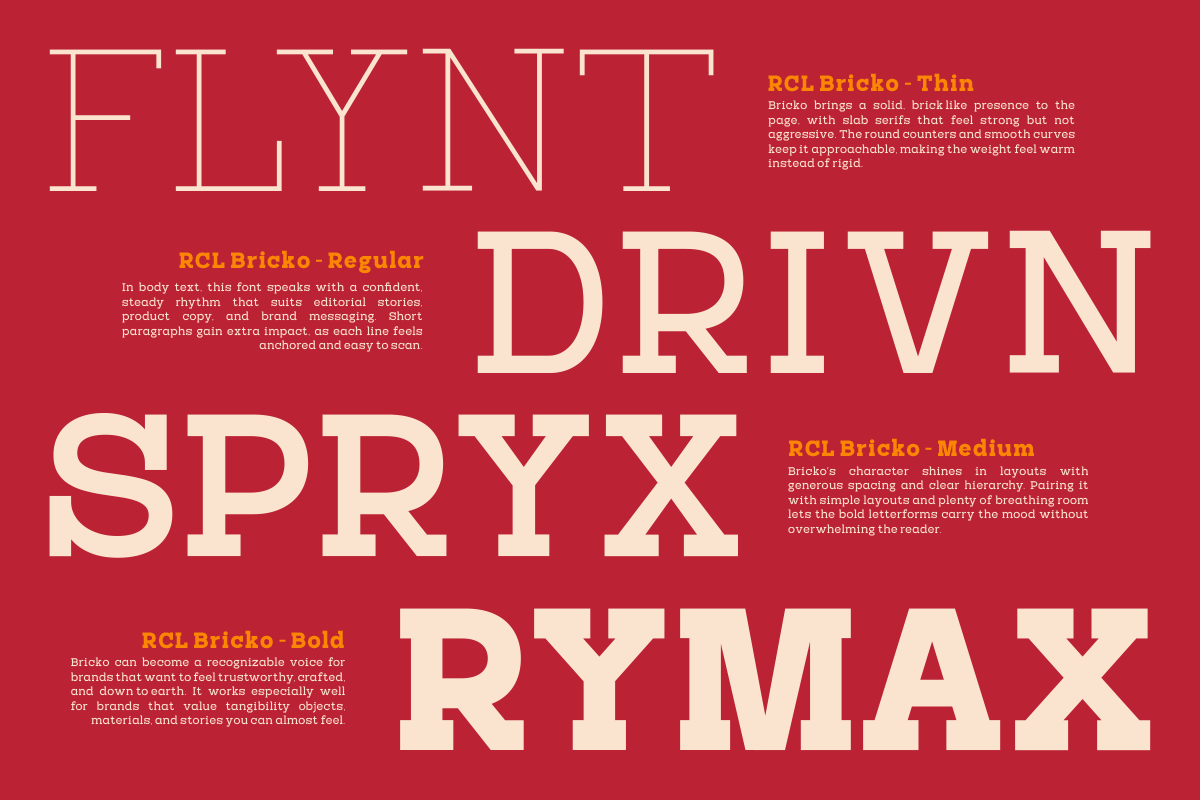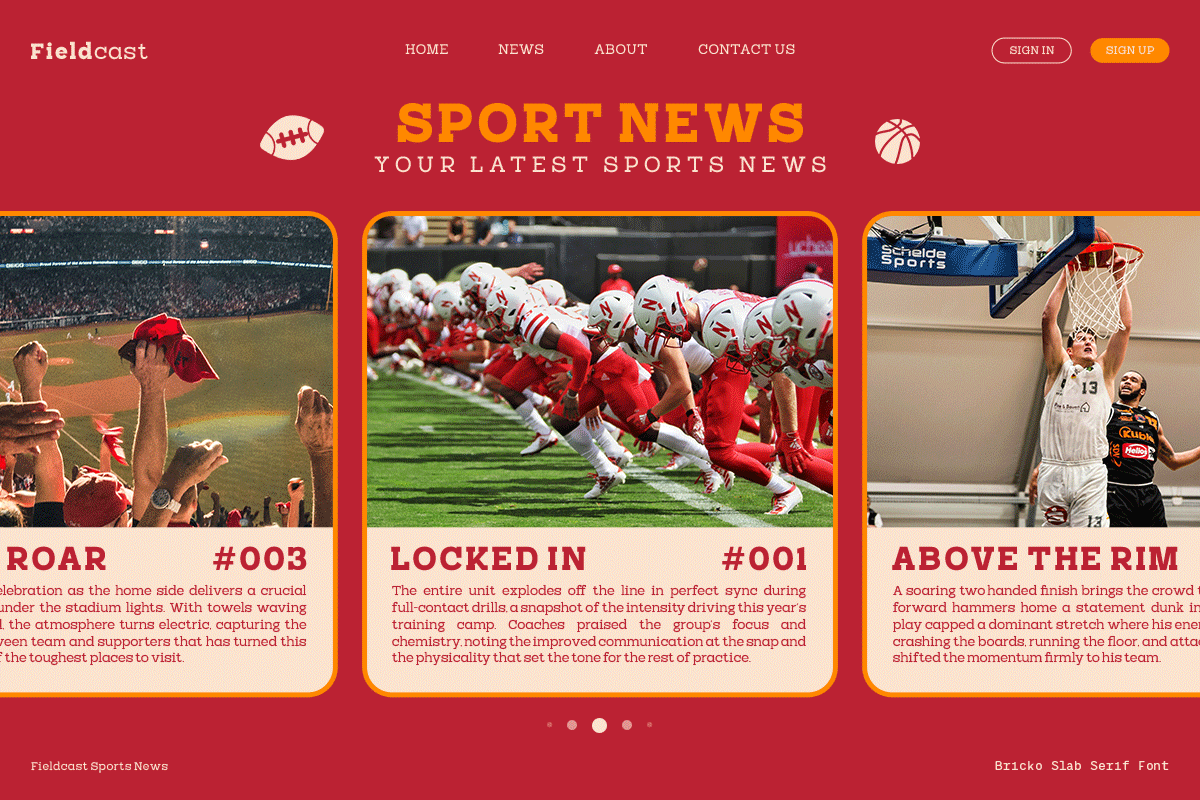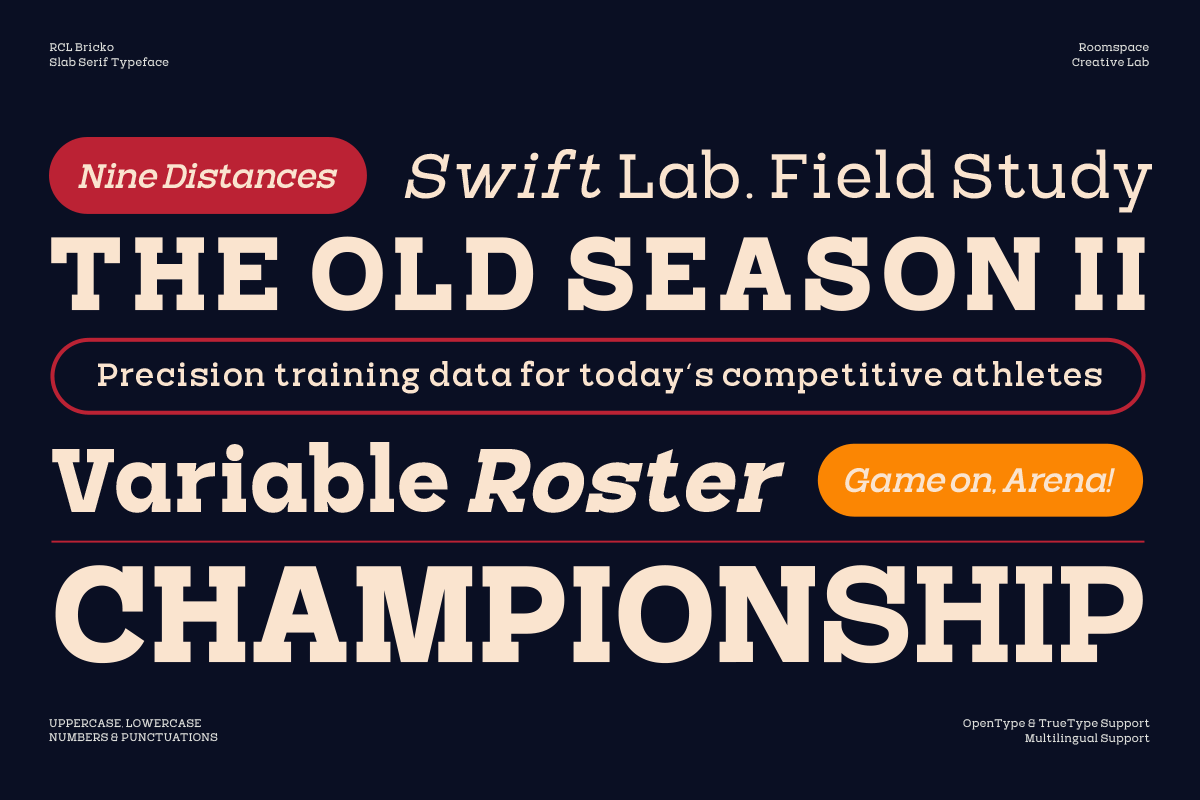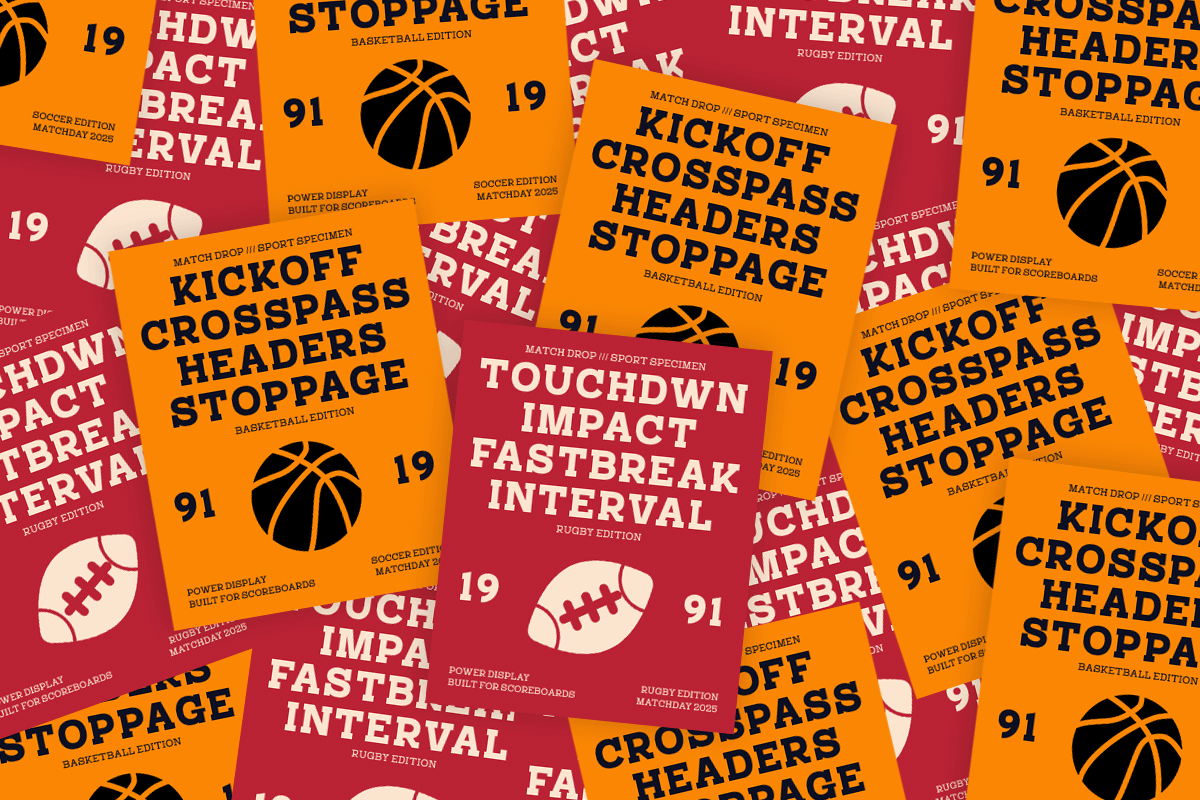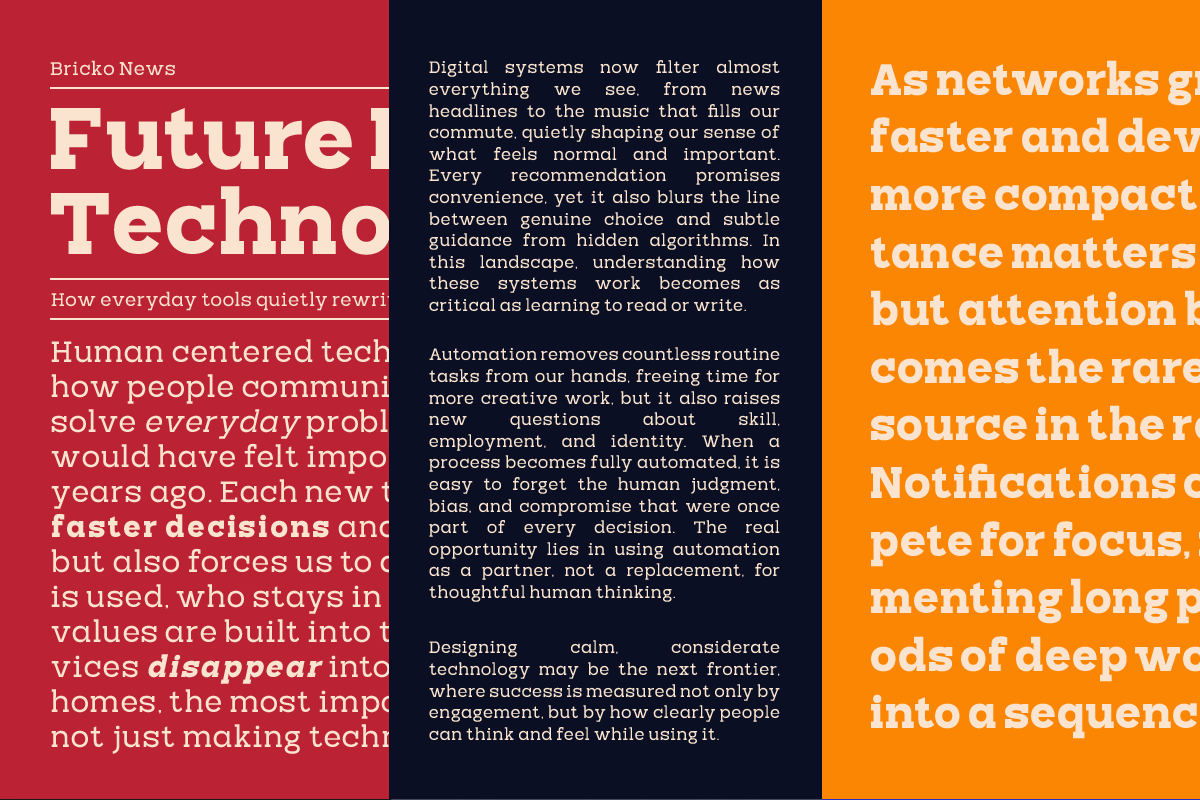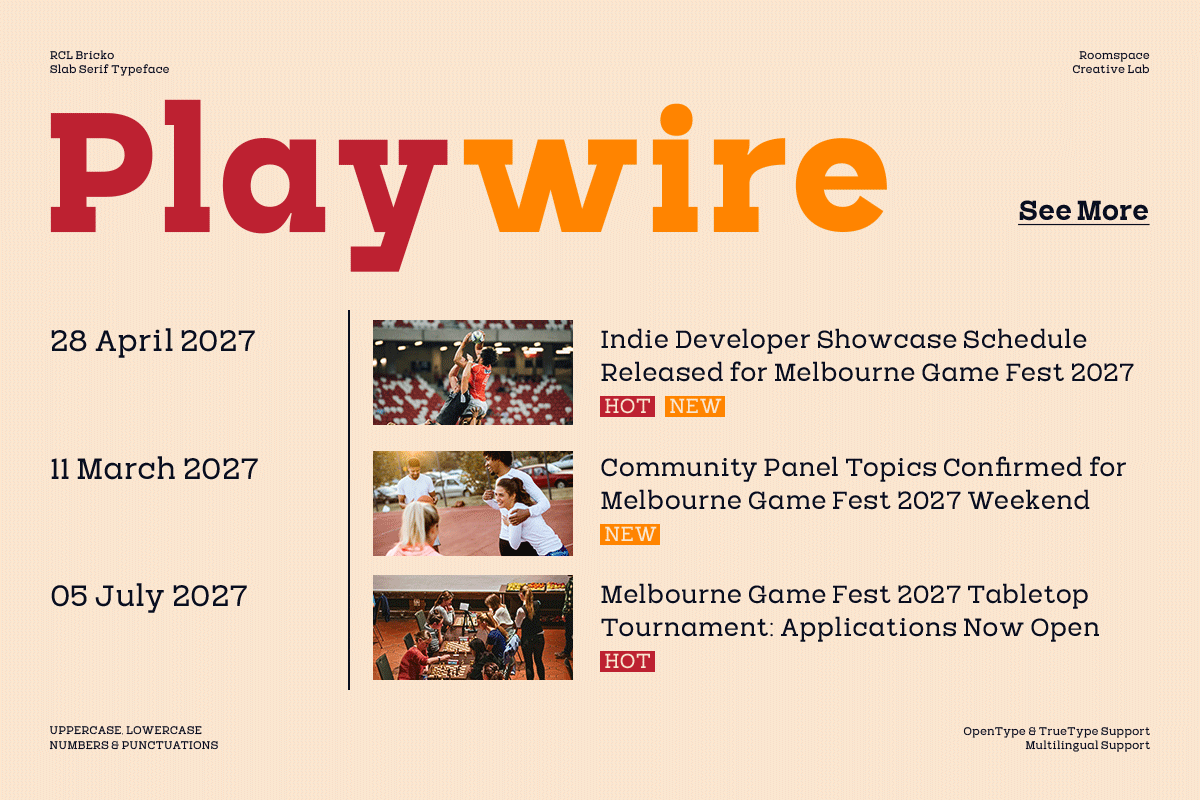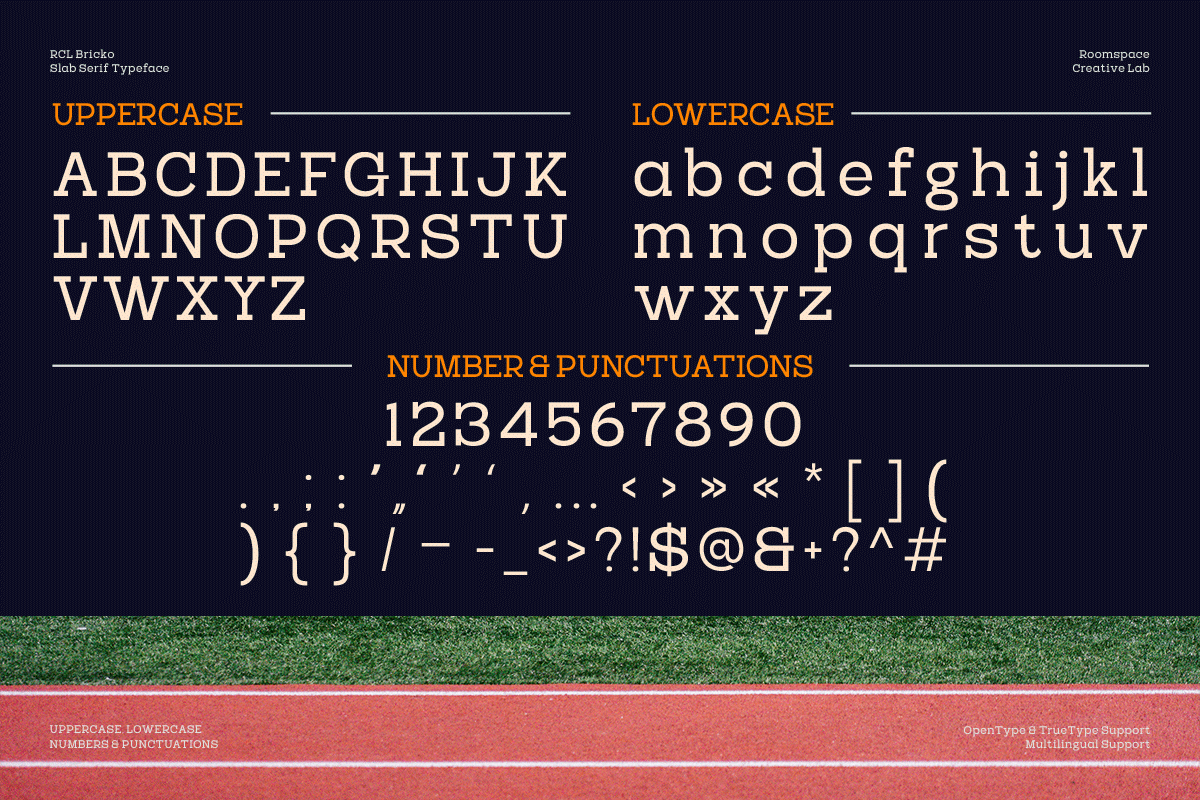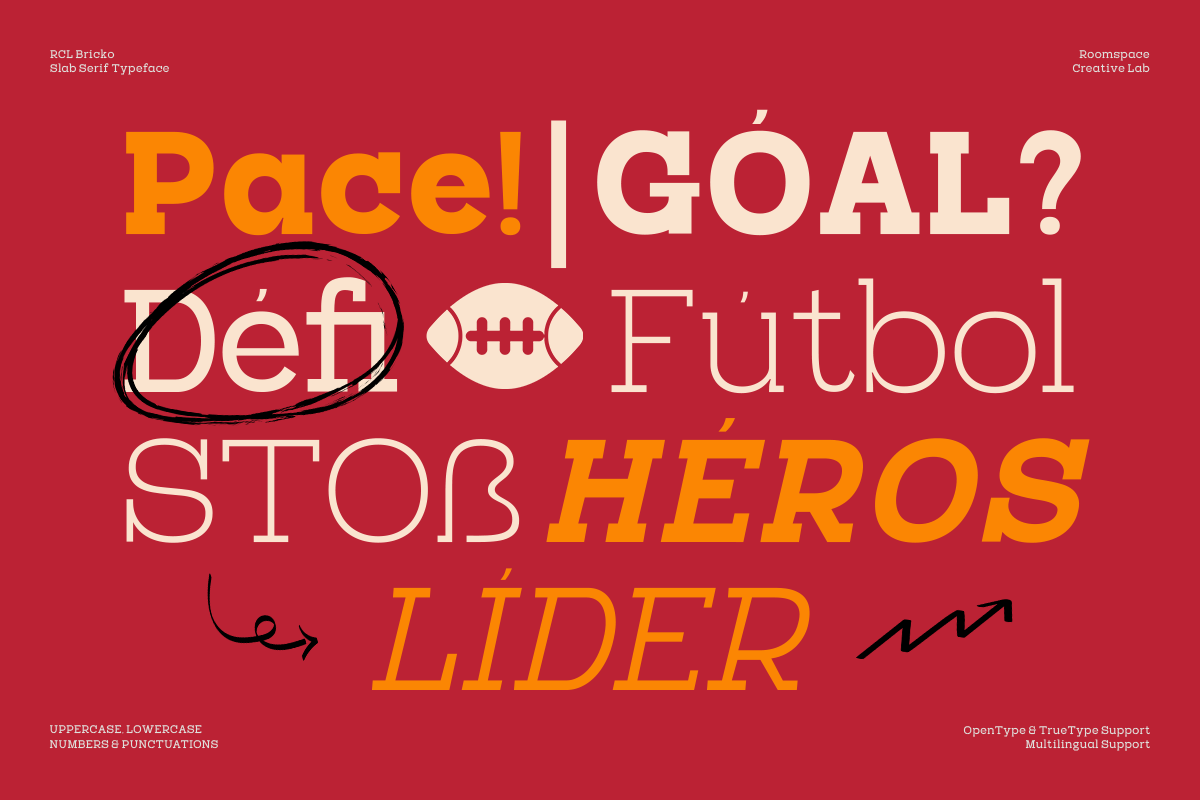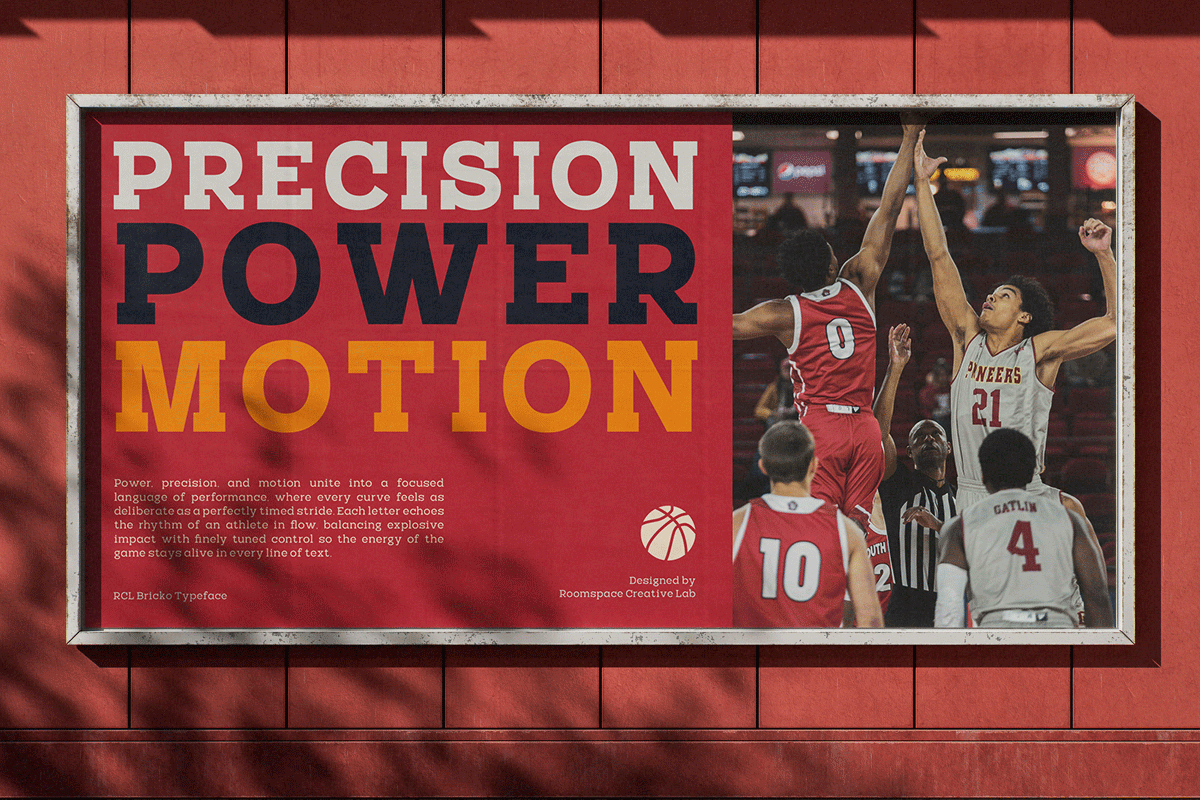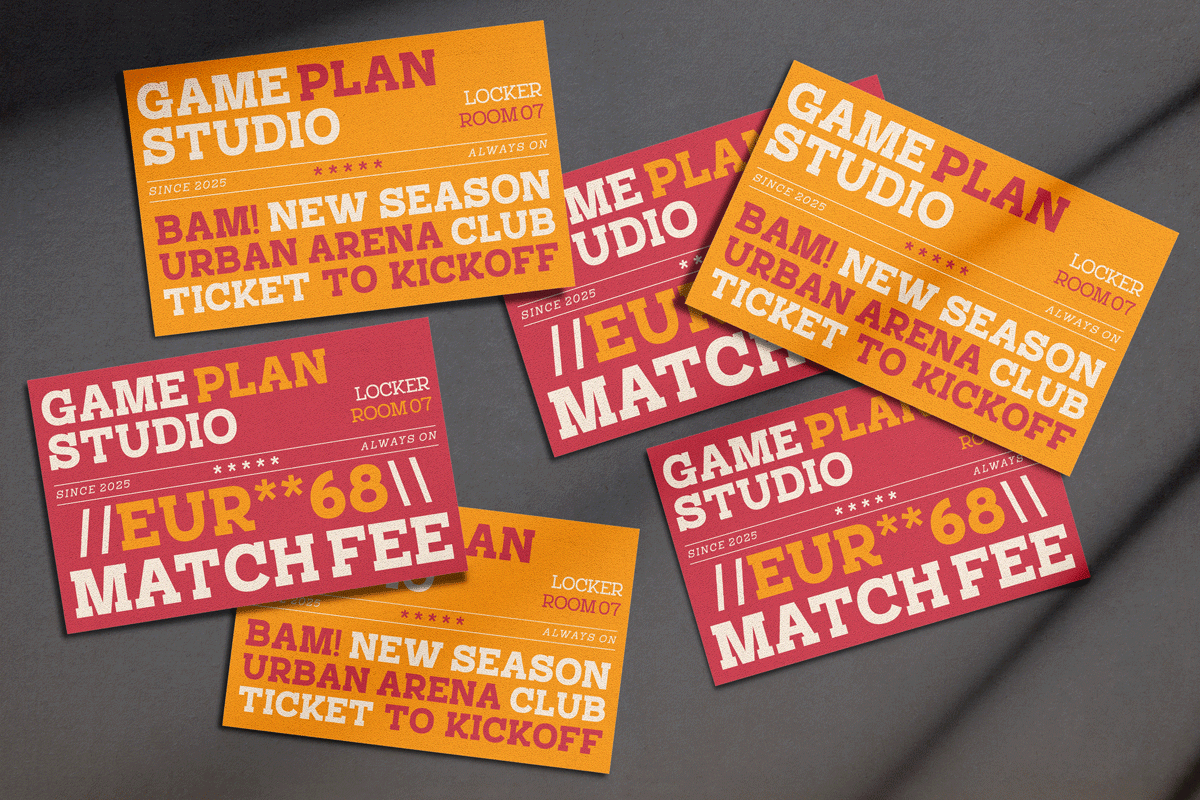
Bricko – A Bold Modern Slab Serif
Bricko is a modern slab serif font family with a strong character, solid structure, and high readability. Inspired by editorial typography and contemporary branding, Bricko feels bold yet clean ideal for designs that aim to appear confident, professional, and trustworthy. Meet Bricko, a modern slab serif font family designed to bring strength, clarity, and confidence into your designs. With solid letterforms and clean proportions, Bricko works beautifully for branding projects, editorial layouts, and bold headlines. Its versatility allows it to adapt effortlessly from corporate identities to modern digital layouts, making Bricko a dependable choice for contemporary creatives.
- Modern slab serif family
- 7 weights + 2 variants
Perfect For : Brand identities, editorial design, logos, websites, packaging, posters, digital marketing, and corporate visuals.